Designer: Freda Sack
Category: Serif
Freda Sack is a London-based type designer, consultant and educator, who has worked for Letraset International and Typographic Systems International. She co-founded The Foundry with David Quay. The Foundry’s latest typeface, Foundry Origin aims to become a modern classic.
What inspired the design of Foundry Origin?
When designing a new typeface, we look for a design that fills a style gap in our typeface library. We are fans of early block serifs, but as we began with the serif shapes we decided we wanted to achieve more elegance and refinement. It also coincided with the British Library approaching us with the request for a new serif font primarily for text use to support their existing sans. We allowed them to try the beta versions of Foundry Origin and the feedback was useful and also helped us formulate a definitive set of weights.
What was the first character you designed and why?
Typefaces never start off as just one character; usually they start as a word sketch because a typeface is all about how characters work together. For Foundry Origin, the concept was in fact the ‘serif’ and laying down the parameters for the regular weight ‘l’, ‘h’, ‘n’, ‘o’, then ‘p’, ‘d’, ‘b’ and ‘q’ for descenders and the proportions of x-height to cap height. Characters with diagonal stems come next and, once satisfied with the basics, you get to play with characters like lower case ‘a’ and ‘g’.
Is it important for a typeface to have distinctive characters to make it memorable?
We believe that the typeface as a whole should have a ‘distinctive perfume’. If the overall concept of the design is working successfully and all the characters sit well together, there is no need for quirkiness to make something look different.
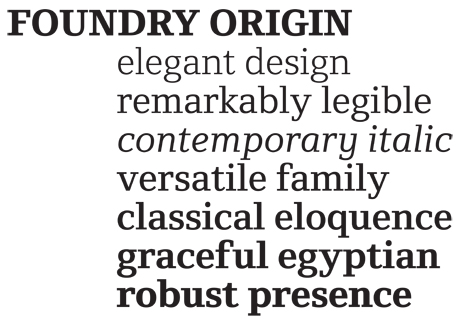
What design challenges did you confront and how did you resolve them?
Establishing the serif shape, weight and length, together with the overall shaping that runs through every character. This concept stage is the most crucial part of the design – get this right and everything else follows.
Where did the name of the typeface come from and what is its significance?
The working name for Foundry Origin was NewStyle, as a departure from Sans. We have lists of names we like and are conscious of their meanings and how they might sound to non-English speakers. Name ideas for Foundry Origin derived from the meaning of the word ‘origin’: original, definitive, essence.
Why are type designers interested in designing new sans serif typefaces?
Designing a sans serif is the ultimate challenge for a type designer and to design a good pure sans (that says something different) without resorting to quirkiness is difficult. We all want to design the next sans classic.
Are text typefaces more challenging to design than display typefaces?
A text typeface is certainly more challenging, especially now with OpenType there is the
possibility of almost unlimited numbers of characters. Text design requires that we pay attention to how the font looks in blocks of text: the texture or overall colour and restrictions of spacing and kerning. Display type usually requires more personality and, in many cases, optimum spacing for larger scale use. With display faces, there are often one or two weights only, while text use requires formulating a more definitive set of weights.